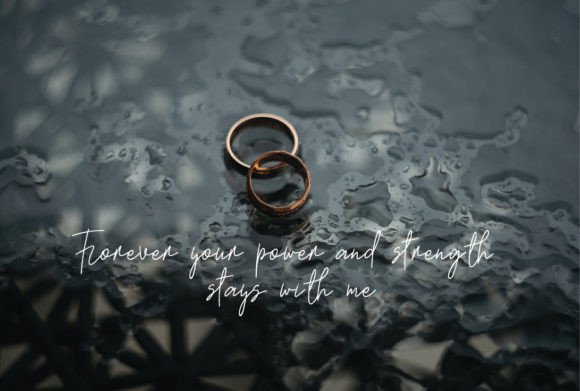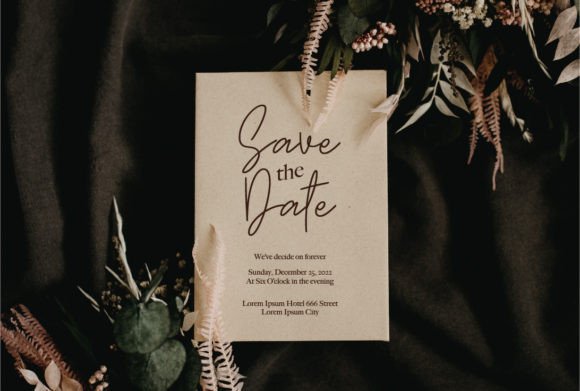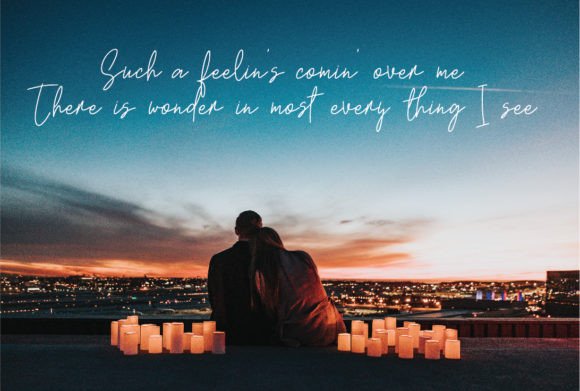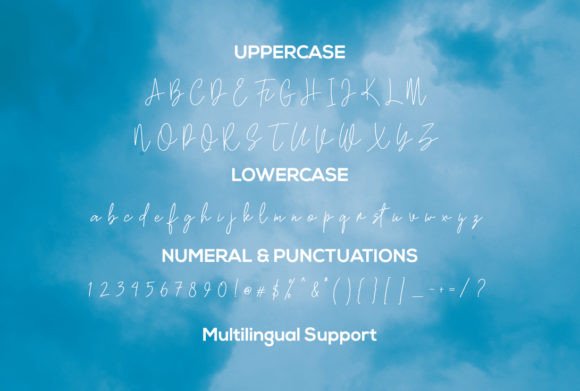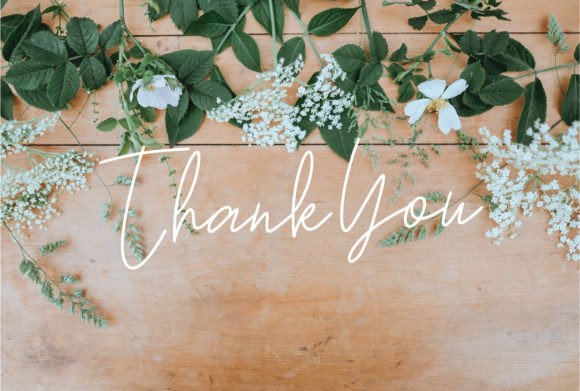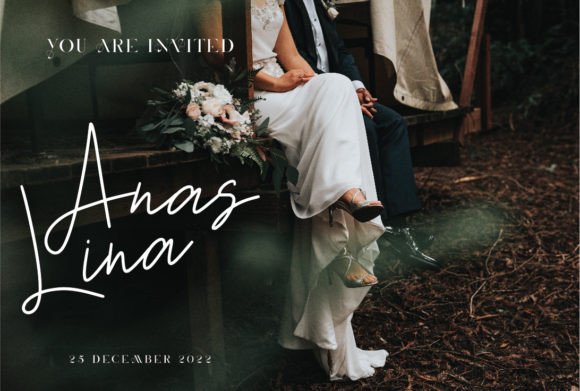
Stanly Clinton Font
About Stanly Clinton Font
“Stanly Clinton” is a chic, elegant, and cozy handwritten font that exudes sophistication. With its beautiful and eye-catching characters, this font is versatile and well-suited for a wide range of creative applications. From wedding invitations and decorations to greeting cards, merchandise designs, posters, music albums, movie titles, magazines, book covers, YouTube content, Instagram posts, websites, and more, “Stanly Clinton” adds a touch of refinement to any project.
The font’s chic and elegant qualities make it particularly suitable for upscale and stylish designs. Whether you’re creating materials for special occasions like weddings or crafting content for social media and digital platforms, “Stanly Clinton” elevates the overall aesthetic with its cozy handwritten style.
The inclusion of PUA encoding enhances the font’s accessibility, allowing you to easily access all the glyphs and swashes. This feature enables you to explore and use various design elements, ensuring flexibility in expressing your creativity.
As you incorporate “Stanly Clinton” into your projects, you’ll appreciate how its chic and elegant design brings a sense of sophistication. Its cozy handwritten aesthetic adds a personal touch to your creations, making them visually appealing and memorable. This font becomes a valuable asset for designers seeking a stylish and refined typeface for a diverse range of applications.